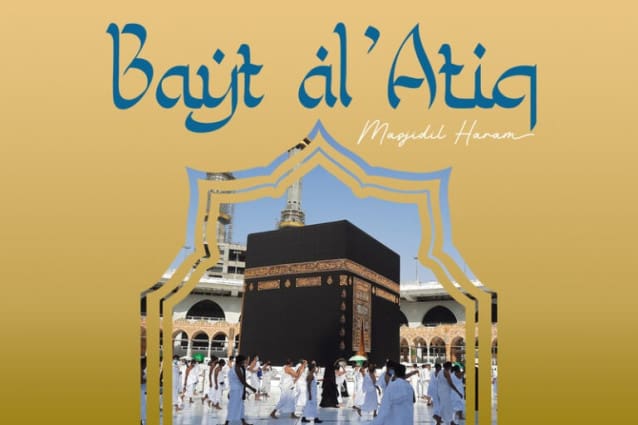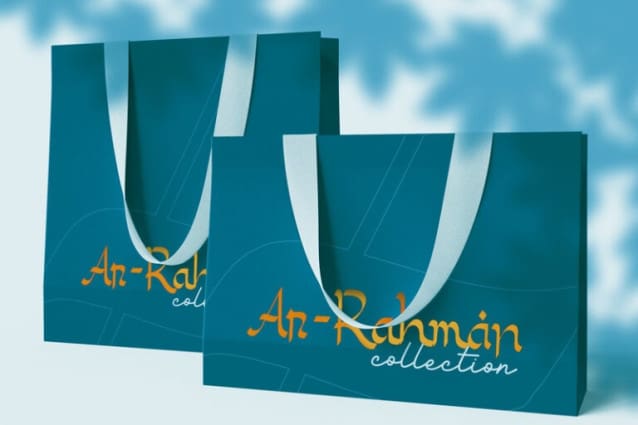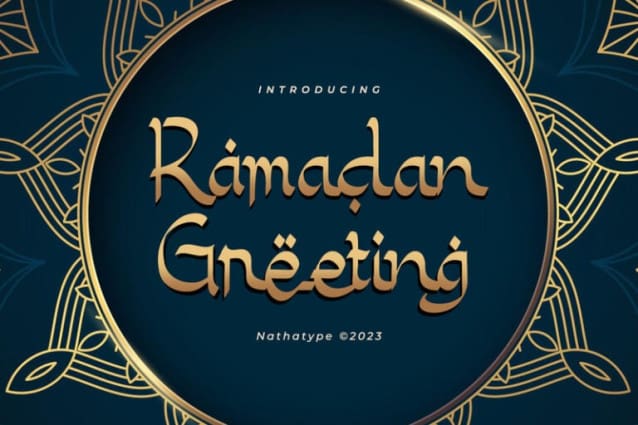
Ramadan Greeting Font
Ramadan Greeting Font is a captivating display font that pays homage to the graceful aesthetics of Arabic calligraphy. RamadanGreeting is more than just a font; it’s a bridge between heritage and modern design. It’s a versatile tool that allows you to infuse your projects with the timeless beauty and cultural richness of Arabic calligraphy.
The characters in Ramadan Greeting are thoughtfully designed with rounded, soft shapes that exude a sense of warmth and approachability. The high contrast between the strokes adds a traditional and authentic flair while maintaining legibility and clarity, even at display sizes.